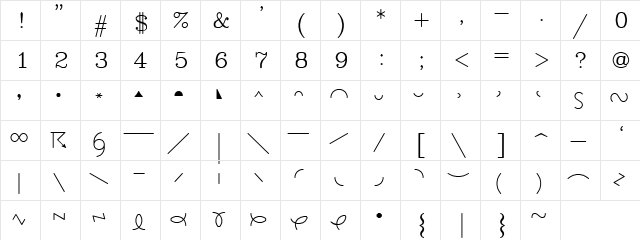
SWMeteo Regular
Design Context for SWMeteo Typeface
SWMeteo is a composed and adaptable typeface that performs quietly and consistently across a wide range of design contexts.